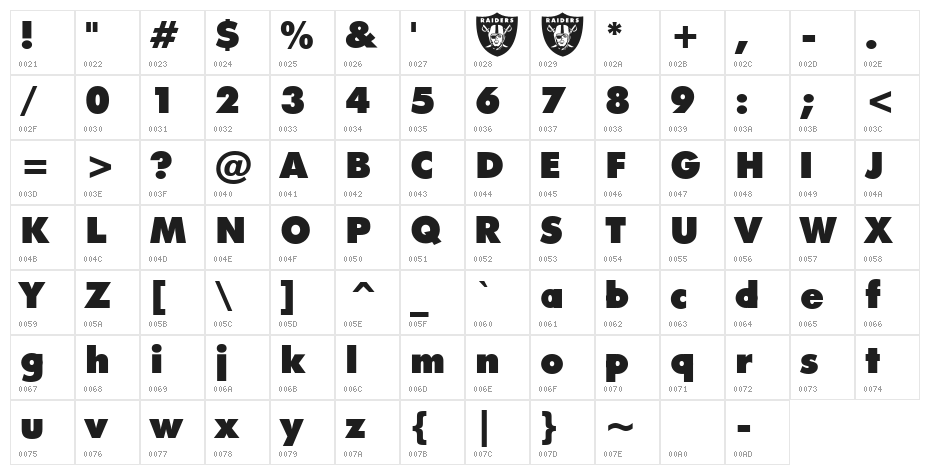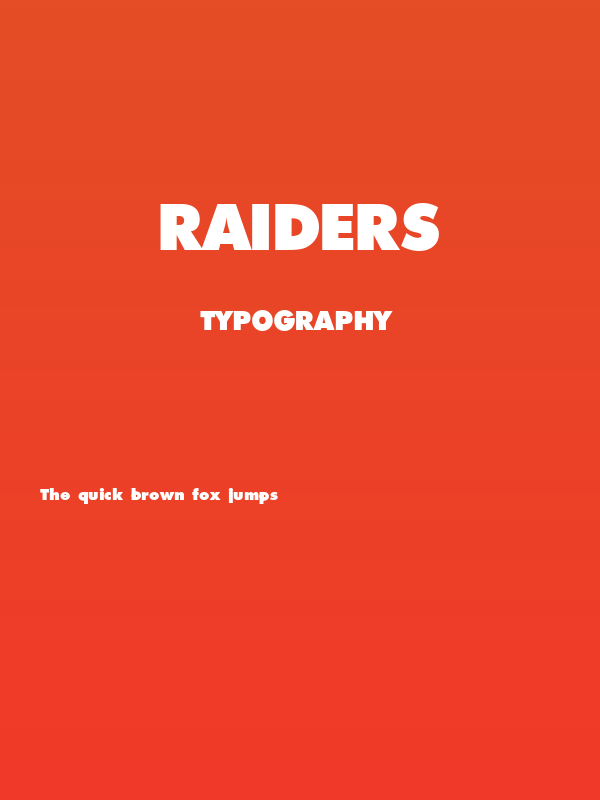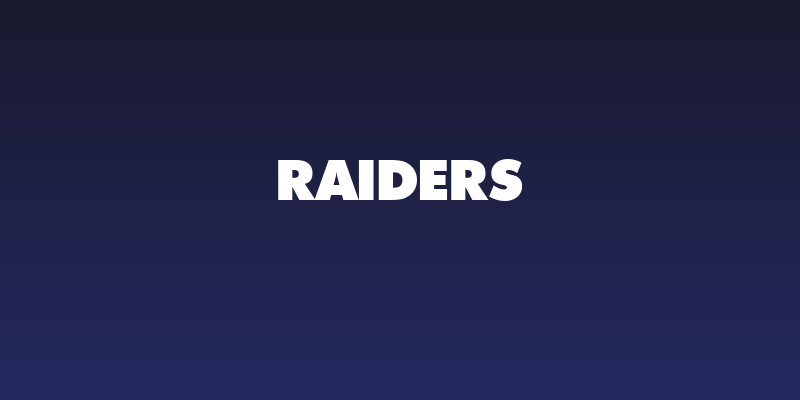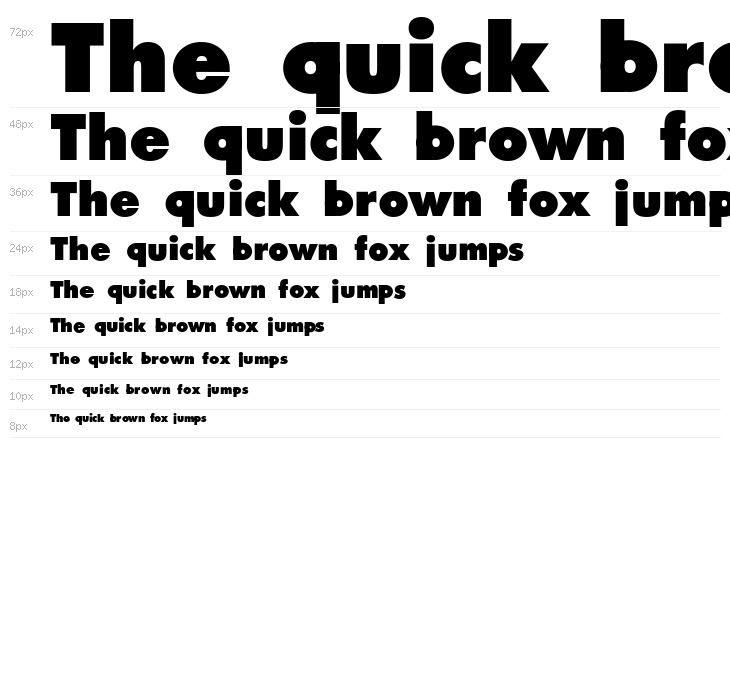
Raiders Font
Raiders Description
This font features bold, geometric letterforms with a strong presence. The uppercase and lowercase letters are uniformly thick, creating a sense of stability and confidence. The numbers are equally bold, maintaining the font's overall robust appearance. Special characters are designed to match the weight and style of the alphabet, ensuring consistency throughout. The font's boldness makes it ideal for attention-grabbing headlines and impactful designs. Its clean lines and lack of serifs contribute to a modern aesthetic, while the uniformity in stroke width provides a cohesive look across all characters.
| Proposed Projects | Ideal for sports branding, posters, headlines, and logos that require a bold statement. |